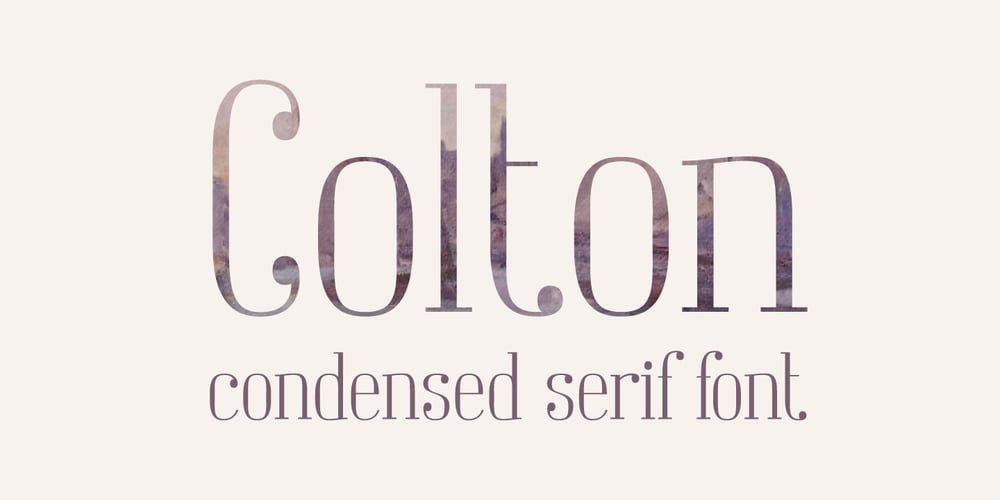
Colton Font Family was designed by Roman Korolev and published by Kaer. Colton contains 1 styles and family package options. Colton is condensed serif font. Perfect to use in elegant branding, luxury logos, wedding invitation, classic layout and more.What’s included?* Uppercase and lowercase* Numbers* Symbols* Ligatures* Punctuation* Multilingual supportI hope you enjoy this font. Follow my shop to receive updates of products and the very hottest news! If you have any question or issue, please contact me: kaer.pro@gmail.com Please request to add additional characters and glyphs if you need! Thank you!